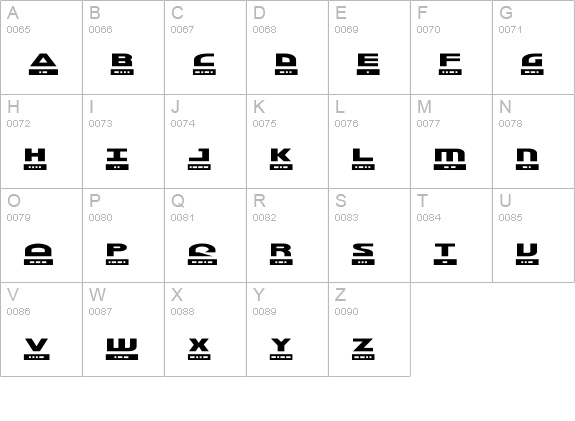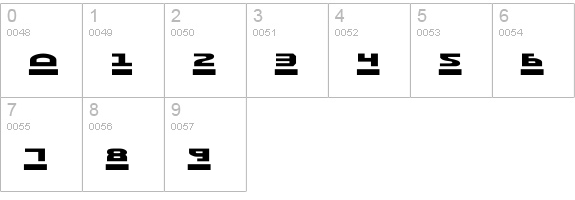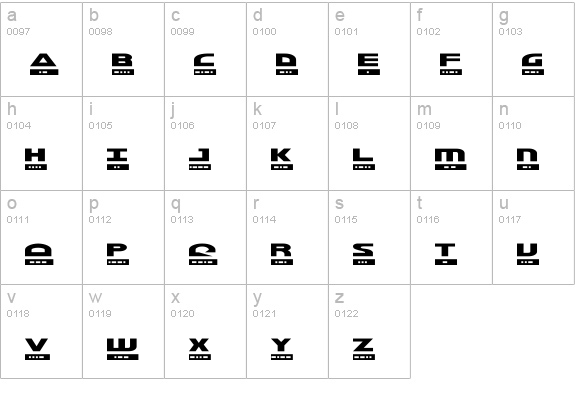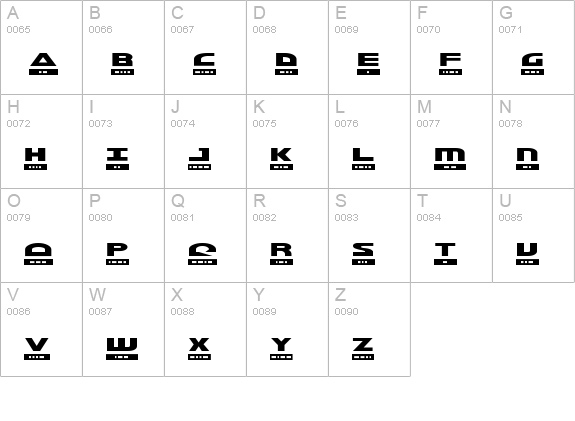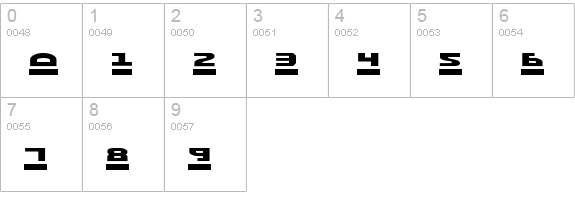
The Morse Kode2 font is a uniquely designed typeface that pays homage to the classic Morse code communication system. With its intricate dot and dash patterns, this font exudes a sense of mystery and nostalgia. The Morse Kode2 font is perfect for adding a touch of retro charm to your design projects, whether you're creating posters, invitations, or branding materials. Best of all, this font is available for free download at FontsMarket.com. So go ahead and bring a touch of Morse code magic to your creations with the Morse Kode2 font today!